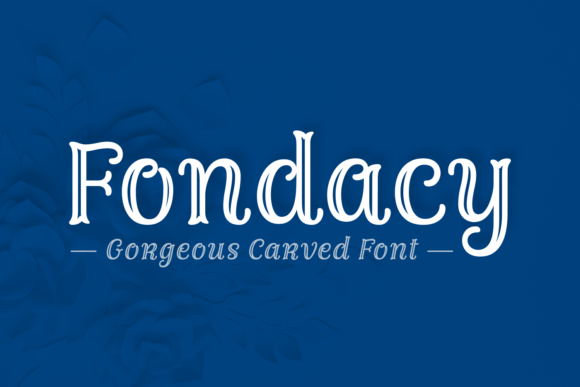
Fondacy Carved Font: Elevate Your Design with Bold Sophistication
The world of typography is vast and diverse, offering a multitude of font styles to suit every design need. Among these, the Fondacy Carved font stands out for its unique blend of boldness and sophistication. This expertly crafted font is designed to make a statement, featuring chunky and extended characters that lend themselves perfectly to a variety of design applications, from logos and branding to packaging design and beyond.
Key Features of Fondacy Carved Font
- Bold yet Sophisticated: The Fondacy Carved font strikes the perfect balance between boldness and elegance, making it suitable for designs that require a strong visual impact without compromising on sophistication.
- Chunky and Extended Characters: The font’s chunky and extended character design makes it highly versatile, allowing it to be used in a wide range of design projects, from large-scale signage to detailed product packaging.
- Perfect for Logos and Branding: The distinctive look of Fondacy Carved makes it an excellent choice for logos and branding, helping businesses to stand out in a crowded marketplace.
- Versatility in Design: Beyond logos and branding, this font is also well-suited for use in packaging design, advertising, and any project that requires a strong, eye-catching typographic solution.
Design Applications for Fondacy Carved
The Fondacy Carved font’s robust and distinctive style makes it an ideal choice for a variety of design applications. Here are some of the key areas where this font truly shines:
- Logo Design: A well-designed logo is crucial for any business, serving as the visual cornerstone of a brand’s identity. Fondacy Carved, with its bold and sophisticated look, provides an excellent foundation for creating memorable and impactful logos.
- Branding: Consistent branding is key to establishing a strong presence in the market. The use of Fondacy Carved in branding materials ensures a uniform and professional appearance across all platforms.
- Packaging Design: In the competitive world of product packaging, standing out on store shelves is vital. Fondacy Carved’s chunky and extended characters make it an effective tool for creating eye-catching packaging that captures consumer attention.
- Advertising: Whether in print, digital, or outdoor formats, advertising requires typography that commands attention. Fondacy Carved’s bold sophistication makes it well-suited for use in advertising campaigns, helping to convey messages with clarity and impact.
Tips for Using Fondacy Carved Effectively
To maximize the impact of the Fondacy Carved font in your designs, consider the following tips:
- Pair with Complementary Fonts: While Fondacy Carved is bold and attention-grabbing, it can be even more effective when paired with complementary fonts that add contrast and balance to the design.
- Consider Color and Texture: The effectiveness of Fondacy Carved can also be enhanced by thoughtful color and texture choices. Experiment with different color palettes and textures to find the combination that best suits your design.
- Use in Hierarchical Design: In designs that require a visual hierarchy, Fondacy Carved can serve as a headline or title font, drawing attention to key information or messages.
Why Choose Fondacy Carved?
In a sea of fonts, Fondacy Carved distinguishes itself through its unique combination of boldness and sophistication. Here are some reasons why designers and businesses choose Fondacy Carved:
- Uniqueness: Fondacy Carved offers a distinctive look that can help designs stand out in a crowded marketplace.
- Versatility: The font’s versatility makes it suitable for a wide range of design applications, from digital projects to print materials.
- Professionalism: The sophisticated aspect of Fondacy Carved ensures that designs look professional and polished, which is essential for establishing brand credibility.
Fondacy Carved is more than just a font; it’s a design tool that can elevate your projects to new heights. Its bold yet sophisticated look, combined with its versatility and range of applications, makes it a valuable asset for designers and businesses alike. Whether you’re looking to create a memorable logo, enhance your brand’s visual identity, or simply add a touch of elegance to your designs, Fondacy Carved is a true must-have.